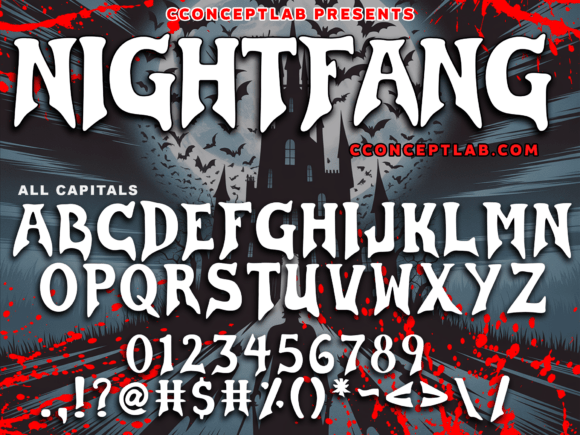
Introduction to Nightfang Font
NightFang is a horror theme bold typeface with rugged edges and expressive character.
It comes with uppercase letters only, making it perfect for edgy branding, grunge posters, music festival, cover albums, horror titles, and street-style designs Its blackleeter texture gives your message power and movement.
Key Features of Nightfang Font
Why Choose Nightfang Font?